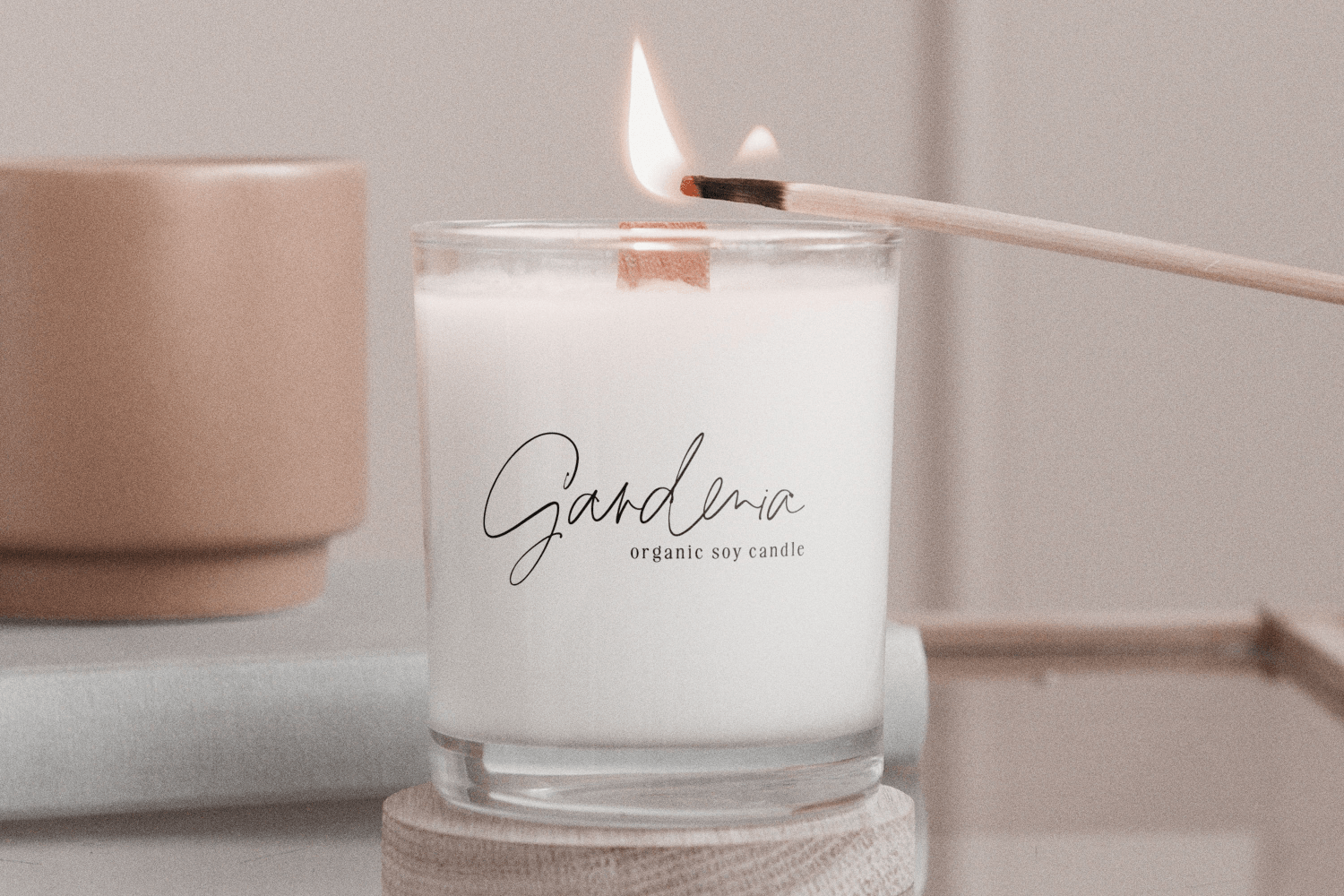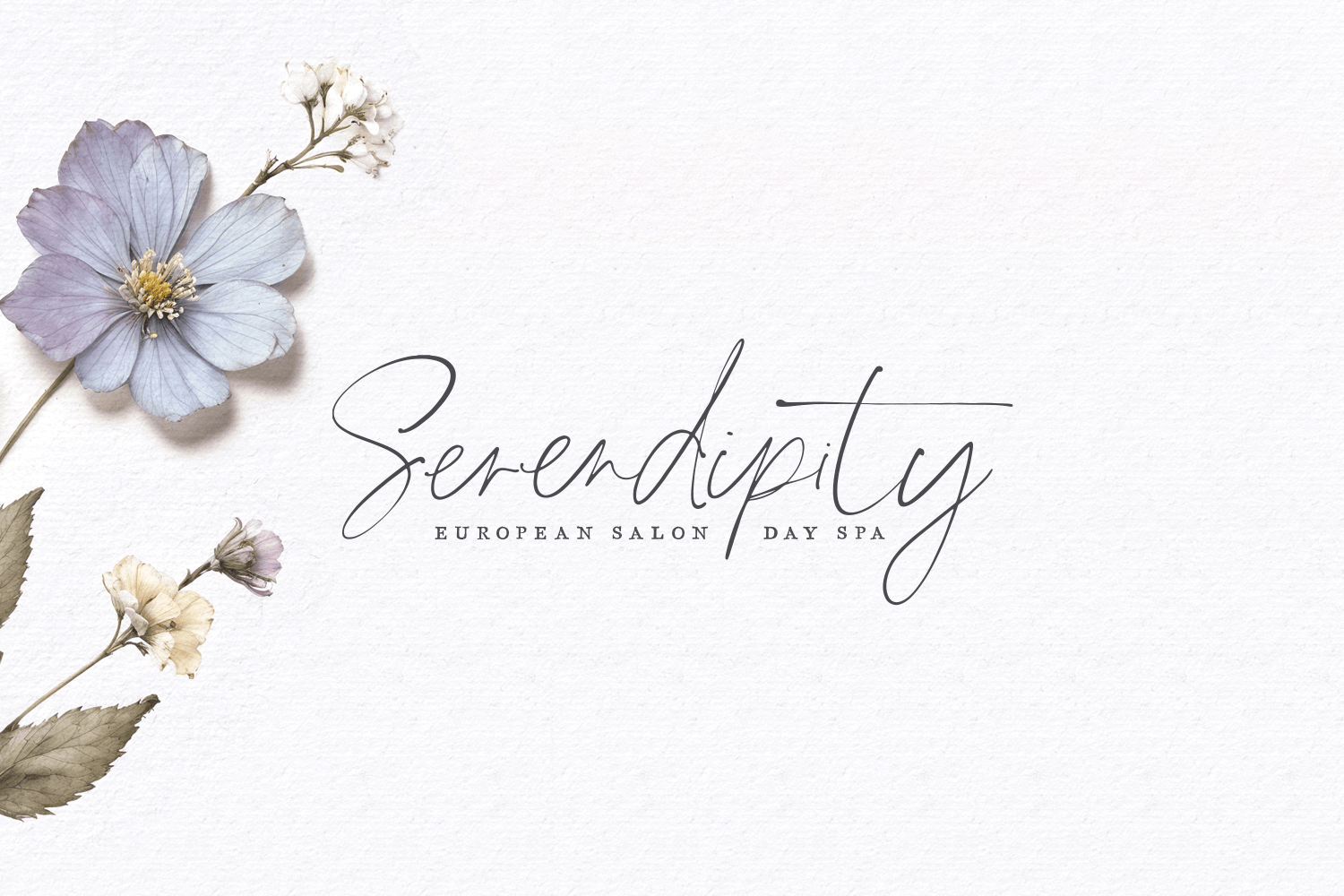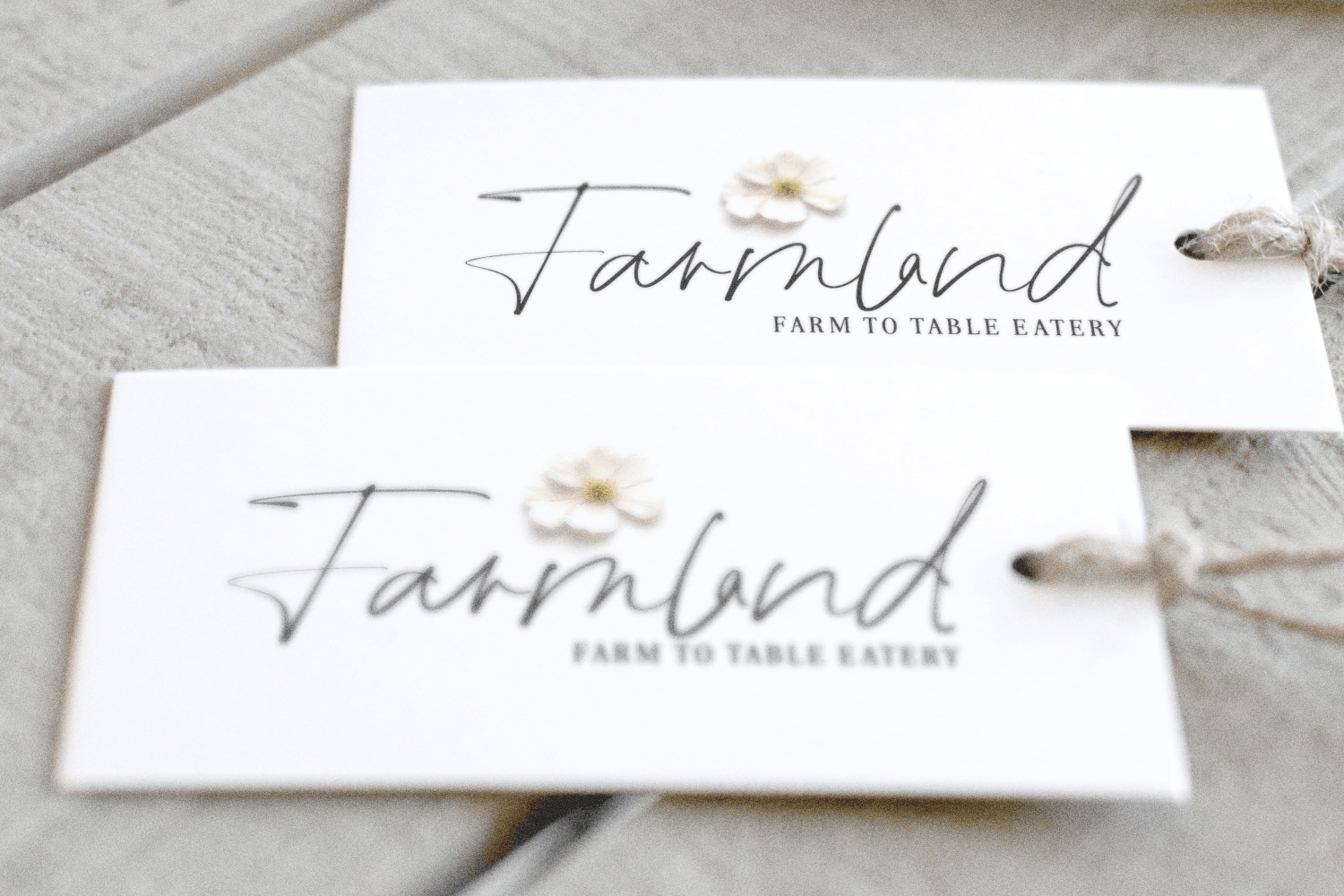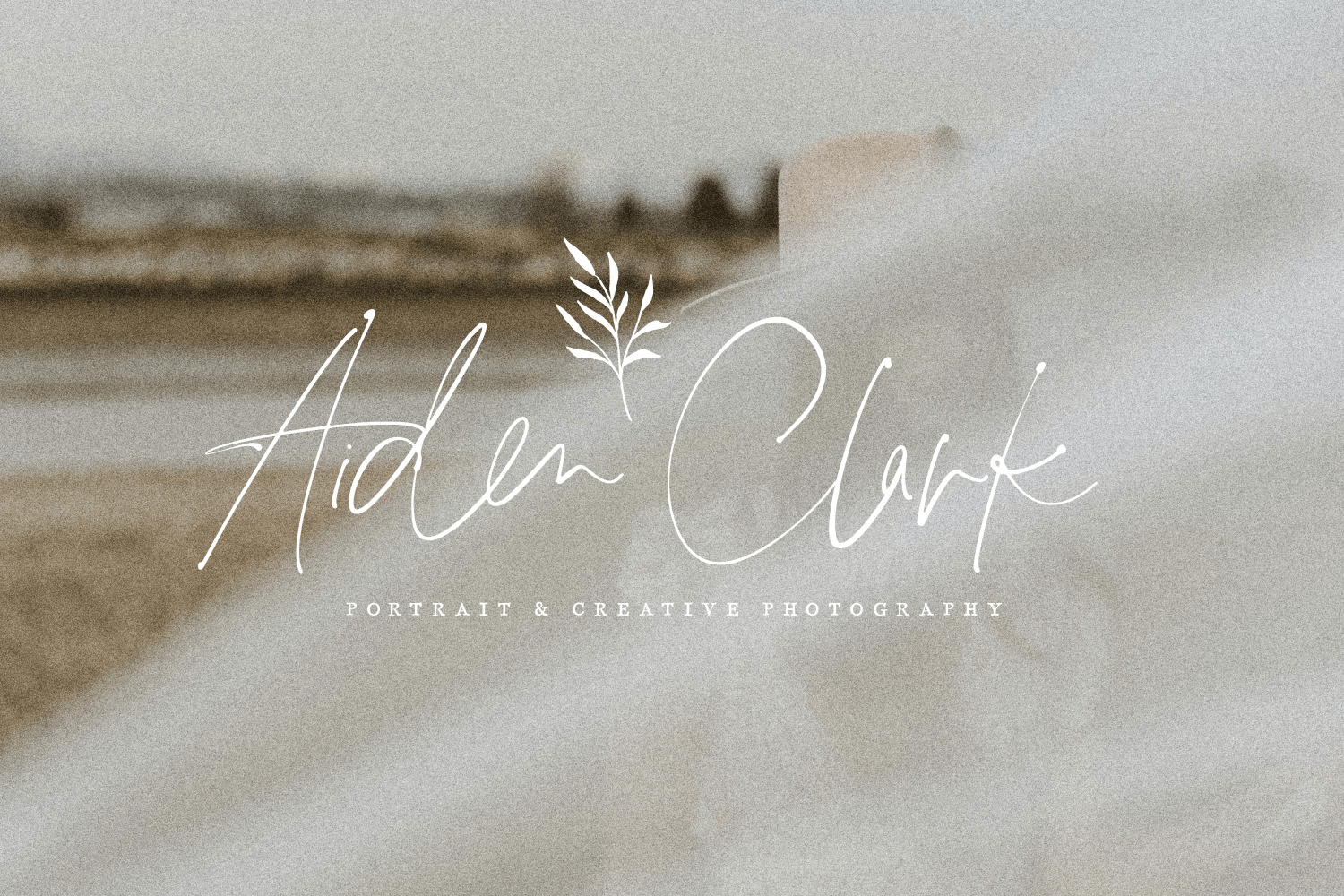
About Tallulah Signature Regular
Introducing Tallulah Signature Script: This decadent, smooth script was designed to mimic pen and ink signatures with its thick and thin lines, exaggerated strokes, and dancing baseline. Tallulah is perfect for sign-offs, logos, packaging, wedding…